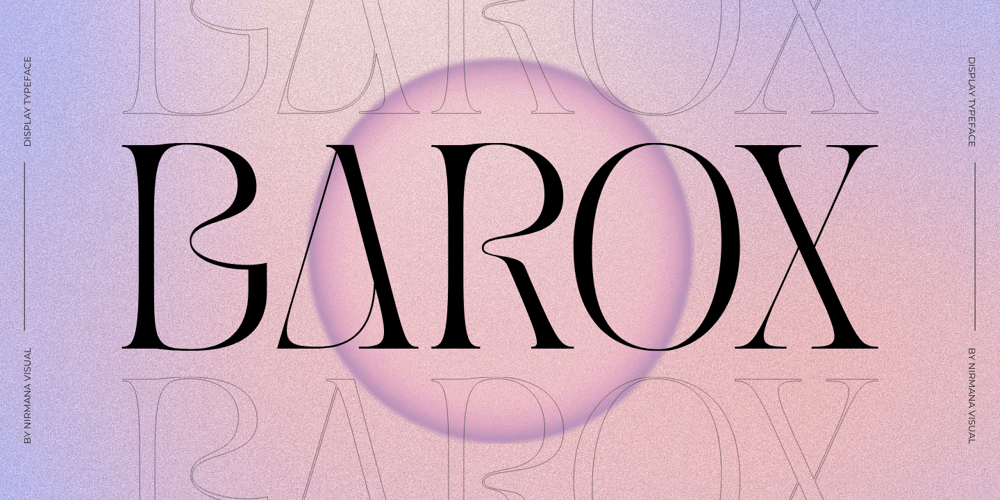
Barox
Barox font
Barox Font Family was designed by Sigit Dwipa and published by Nirmana Visual. Barox contains 1 styles and family package options. Barox – Modern Font, Serif Display Typeface.Barox offers beautiful typographic harmony for a diversity of design projects, including logos & branding, social media posts, advertisements & product designs.